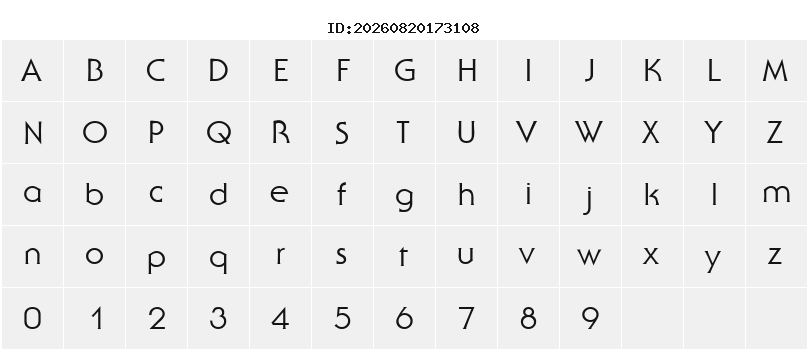
SerenadeTwo DB Preview
• Font Name: SerenadeTwo DB
• Full Font Name: SerenadeTwo-Regular DB
About SerenadeTwo DB.ttf
SerenadeTwo DB.ttf is a modern, elegant sans-serif font designed for ultimate readability and visual harmony. Perfect for branding, headlines, web design, and print materials.